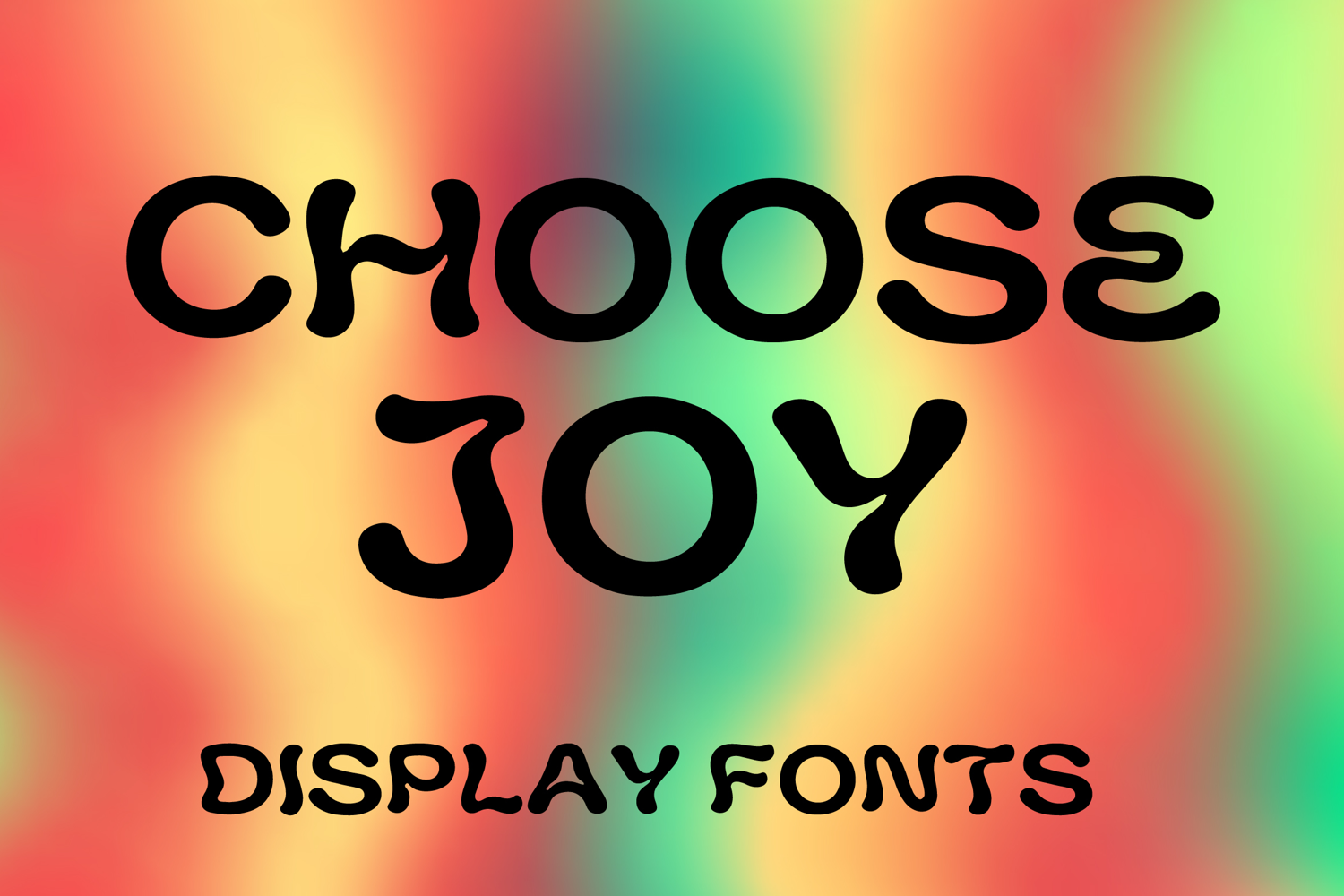
CHOOSE JOY
CHOOSE JOY is a playful display font with a bold rounded style and cheerful artistic charm. Its uppercase letterforms feature soft curves, thick smooth strokes, and quirky organic shapes that create a fun, friendly, and eye-catching look. Designed with uppercase letters A–Z and numbers 0–9, CHOOSE JOY is perfect for branding, posters, packaging, invitations, logos, social media graphics, and creative projects that need a happy and memorable statement.